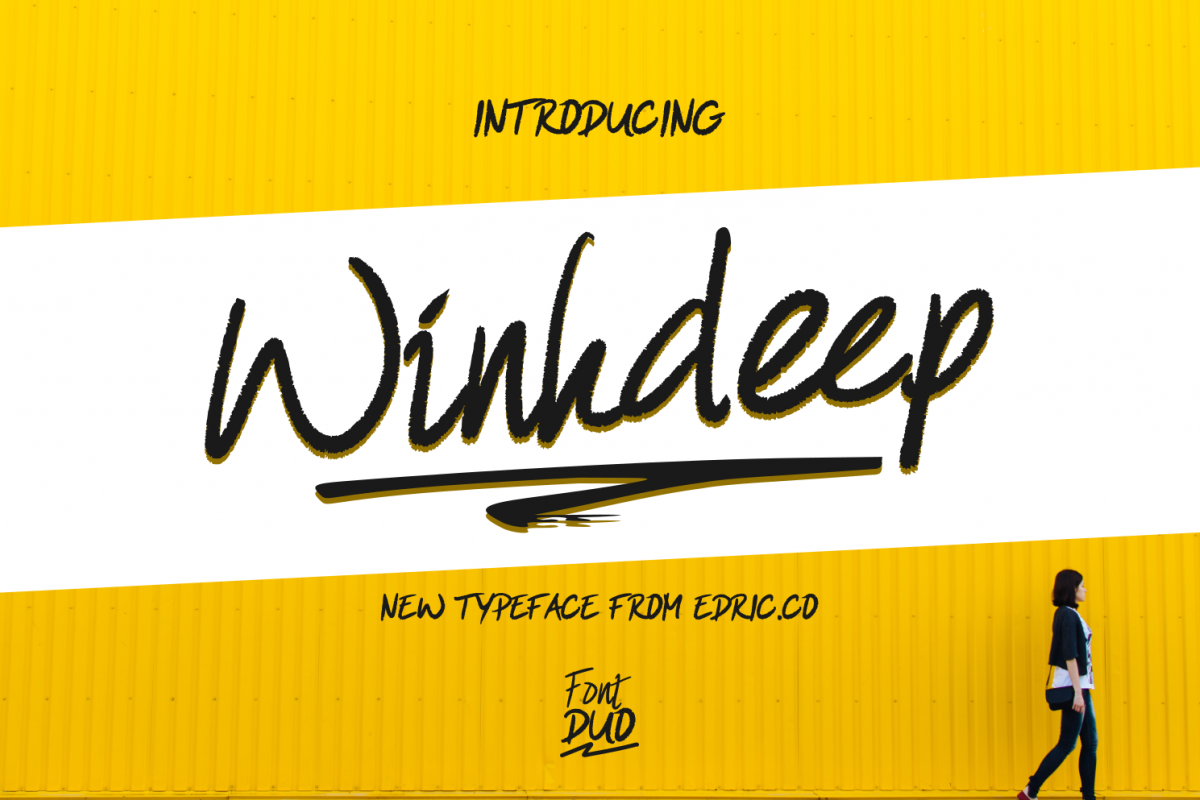
WinkDeep
Hello Guys, Introducing our first font here on Fontbundles.net. The name is WinkDeep, it has 2 font variations so we call it FONT DUO. We made it looks like a dry brush and a rough chalk hand writing.This font is great for many things : shirt, poster, branding, menu, flyer, invitation, logo, etc. It has a unique texture so it’s really rare and has its own kind.WinkDeep consist of 2 variation : ONE and TWO. It has different thickness, so it can make more options. With unlimited creativity. It’s great for printing designs and online brands.Purchase it with confidence! Grab it now.